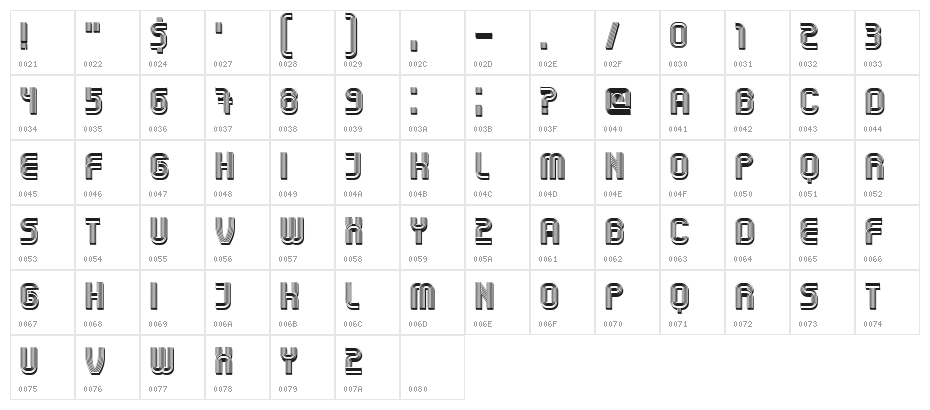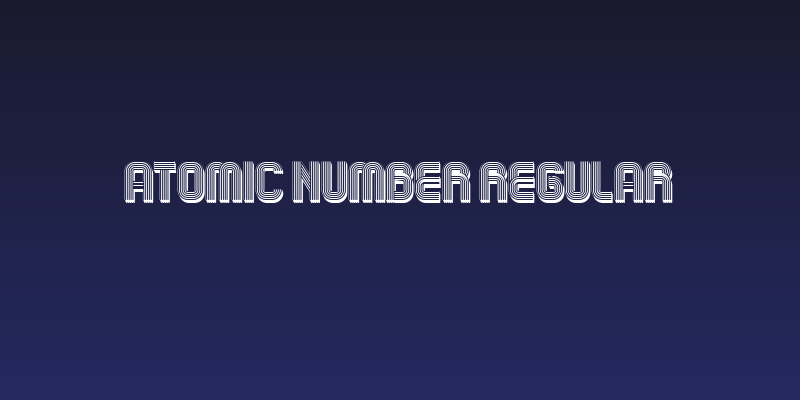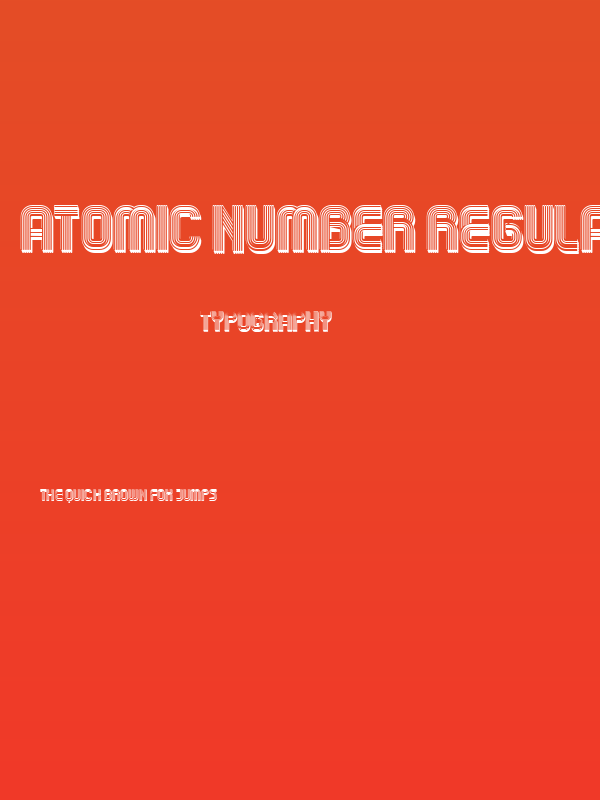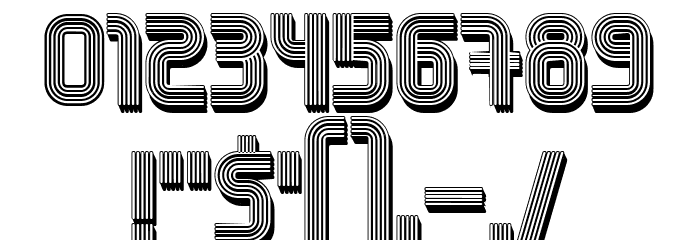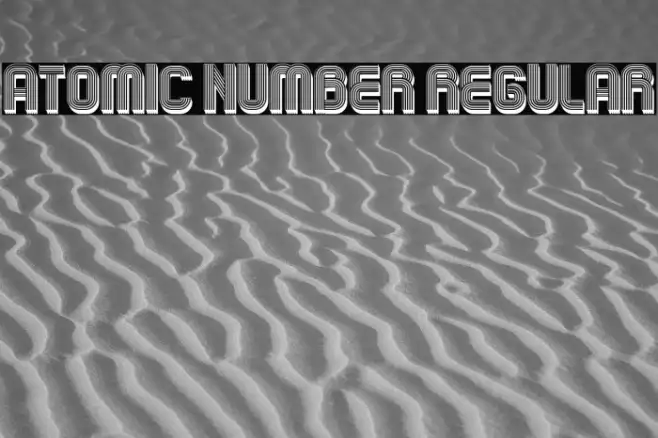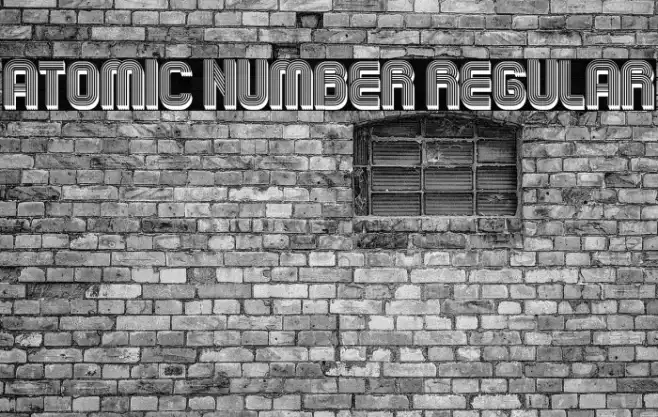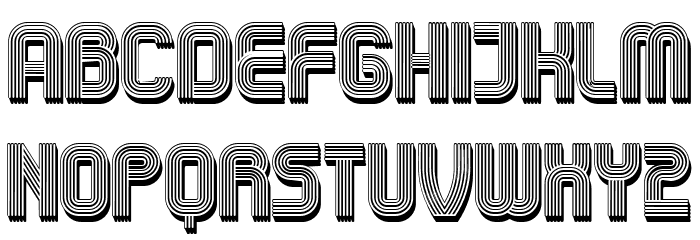
Atomic Number Regular Font
Atomic Number Regular Description
This font features a bold, geometric design with a distinctive layered effect, creating a sense of depth and dimension. The characters are composed of multiple parallel lines, giving them a futuristic and dynamic appearance. The uppercase and lowercase letters maintain a consistent style, with rounded edges and uniform line thickness. The numerals and special characters follow the same design principles, ensuring a cohesive look across all elements. This font's unique structure makes it stand out, ideal for projects that require a modern and eye-catching typeface.